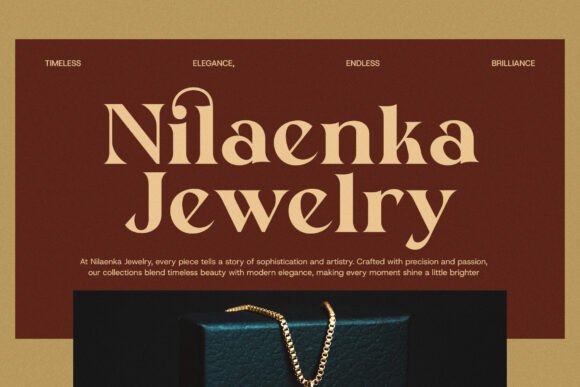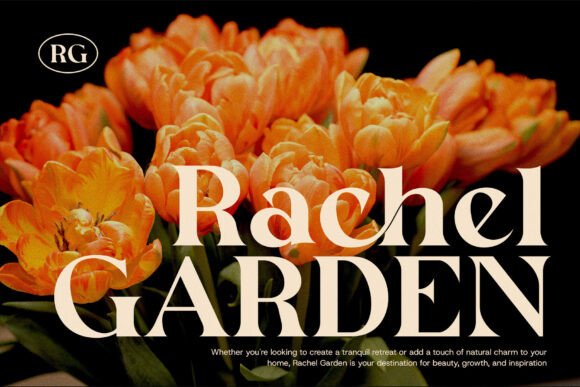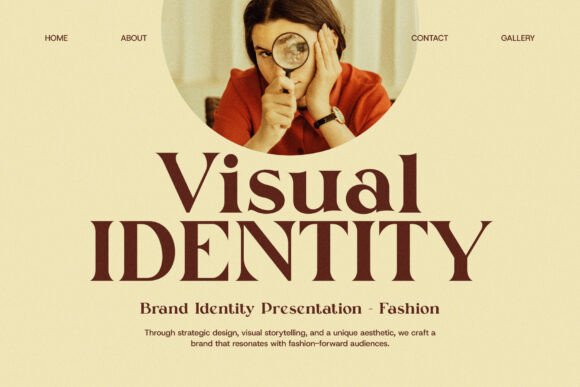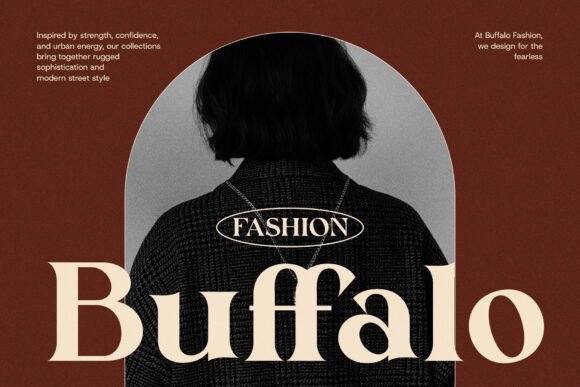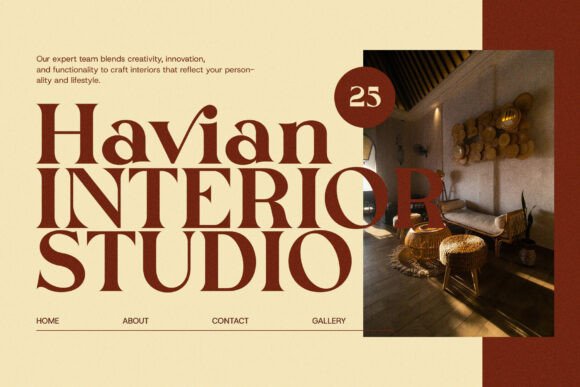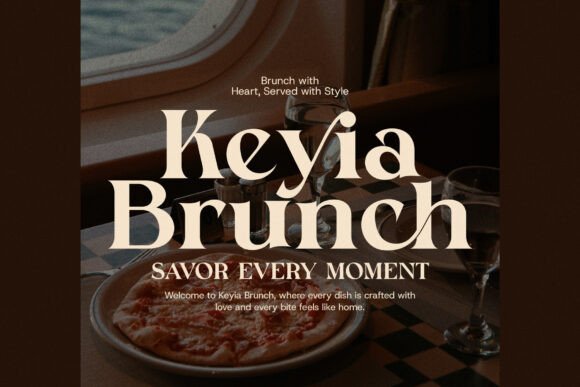
Introduction to Migilen Font Font
Fonts play a crucial role in design, and the Migilen Font font is a typeface that brings both character and versatility to any project. Whether you’re working on a branding project, a website, or a print design, the Migilen Font font offers a unique style that can elevate your work.
Migilen is a stunningly elegant typeface designed to bring a touch of sophistication to any project.
With its unique blend of modern aesthetics and timeless serif elements, Migilen stands out as the perfect choice for high-end branding, upscale websites, and premium product designs The fontβs exquisite ligatures and alternate forms elevate its versatility, making it an ideal candidate for logos, advertisements, magazines, and boutique marketing materials.
The Migilen Font font is more than just a typeface β it’s a design tool that helps you communicate your message with style and clarity. Its unique character set and versatile design make it suitable for a wide range of applications, from elegant invitations to bold headlines.
With its carefully crafted letterforms and balanced proportions, the Migilen Font font ensures readability and visual appeal across all mediums.
The Migilen Font font stands out with its unique design, exceptional readability, and versatility across various design applications.